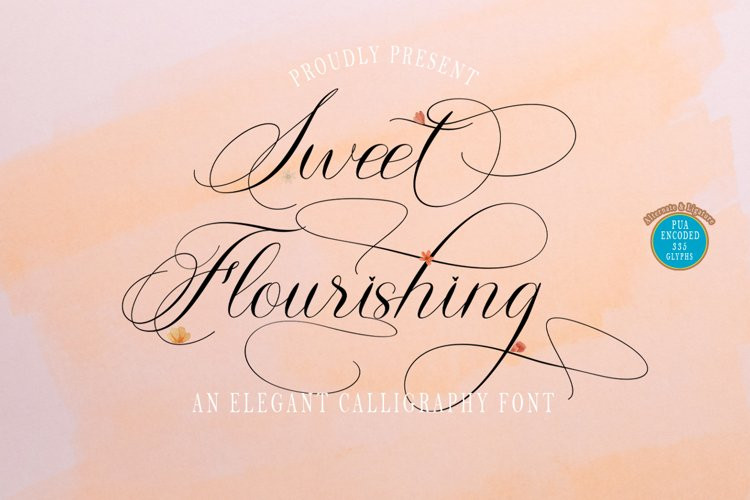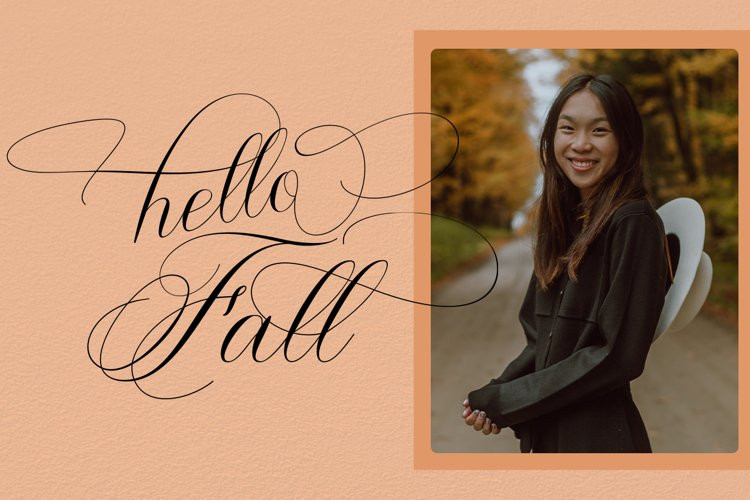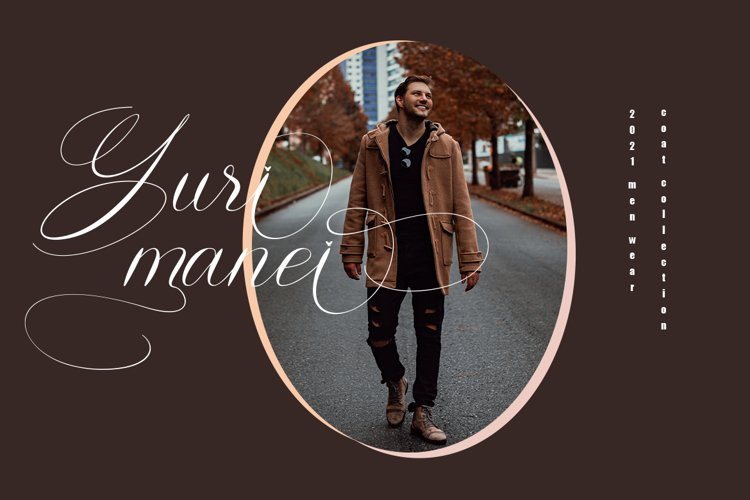
Sweet Flourishing Font
Sweet Flourishing FontSweet Flourishing is a dainty, elegant and flowing handwritten font. It has beautiful and well balanced characters and as a result, it matches a wide pool of designs.
Sweet Flourishing is carefully designed to be modern so they work together harmoniously making it perfect for wedding favors, book covers, greeting cards, logos, branding, business cards and certificates, even for any design work that requires classic, formal or extravagant.
Sweet Flourishing is PUA encoded which means you can access all glyphs and swashes with ease!